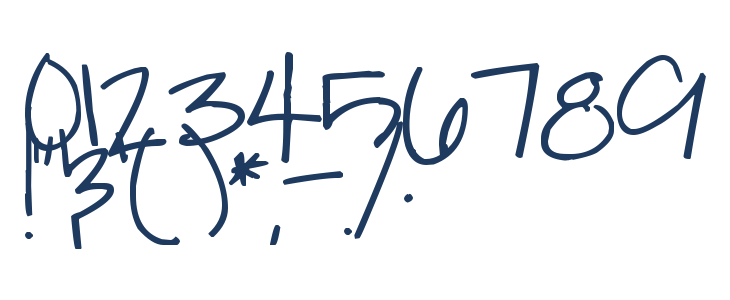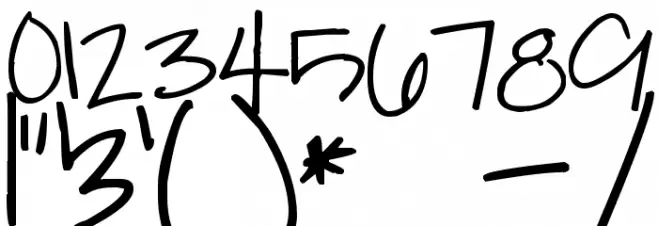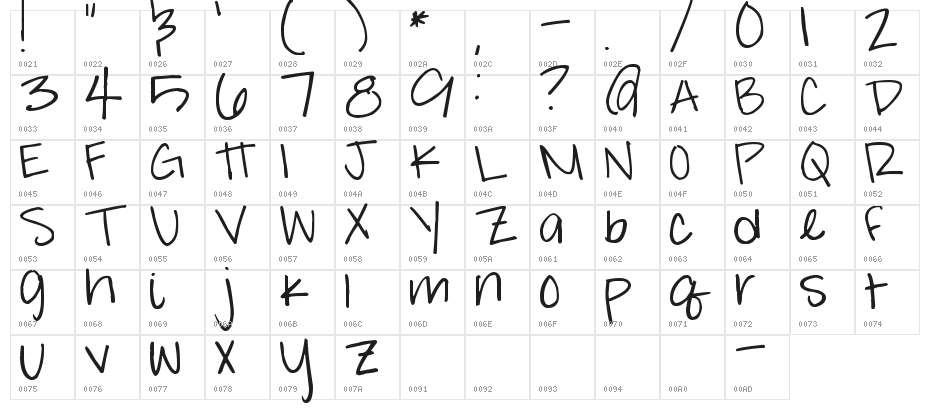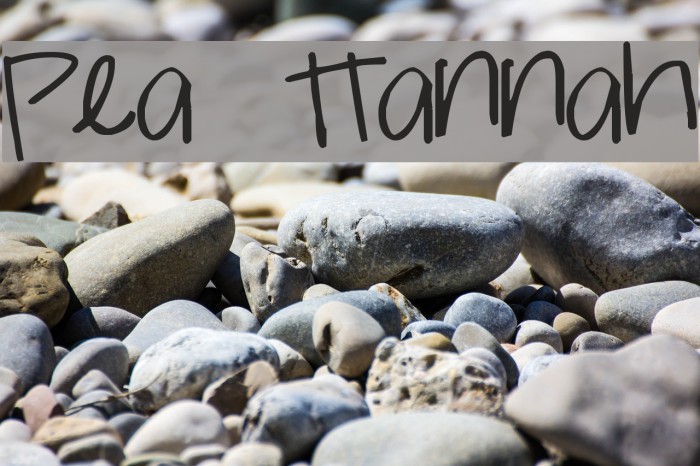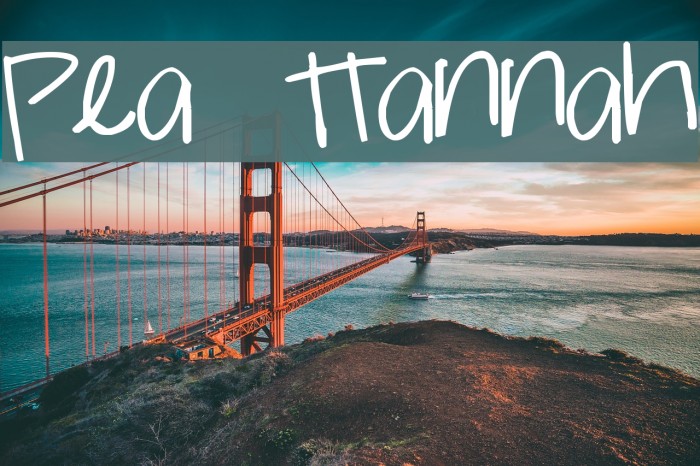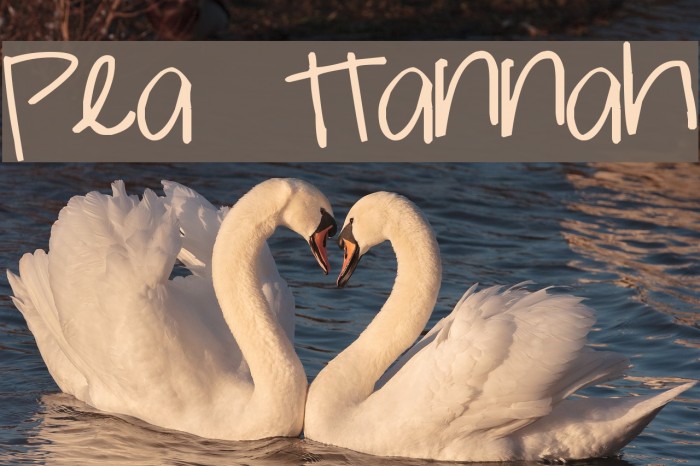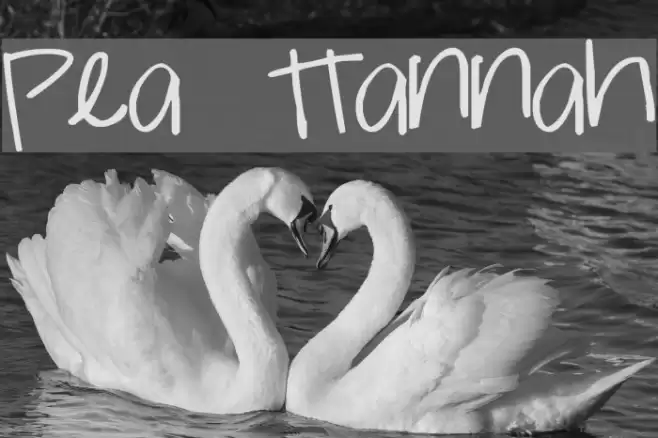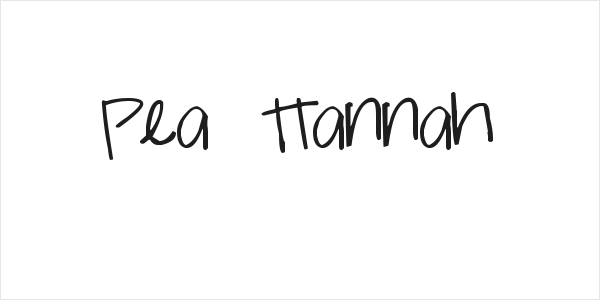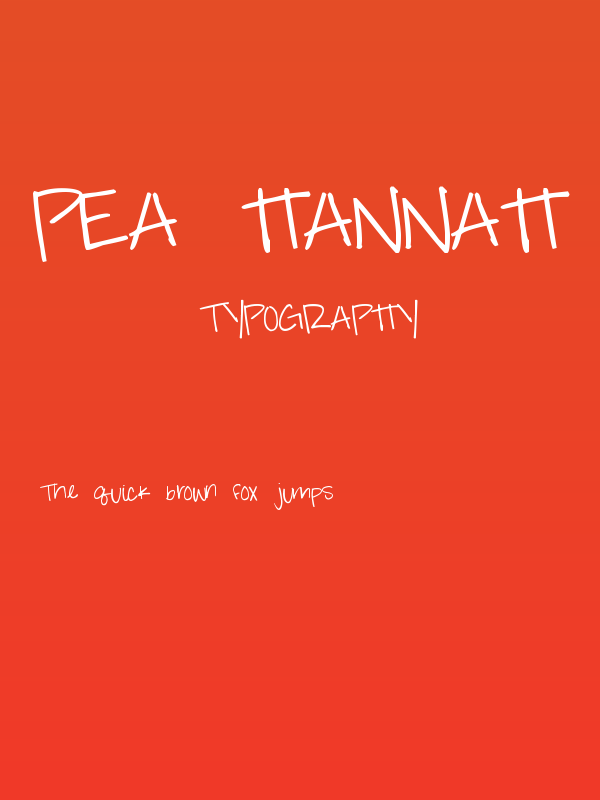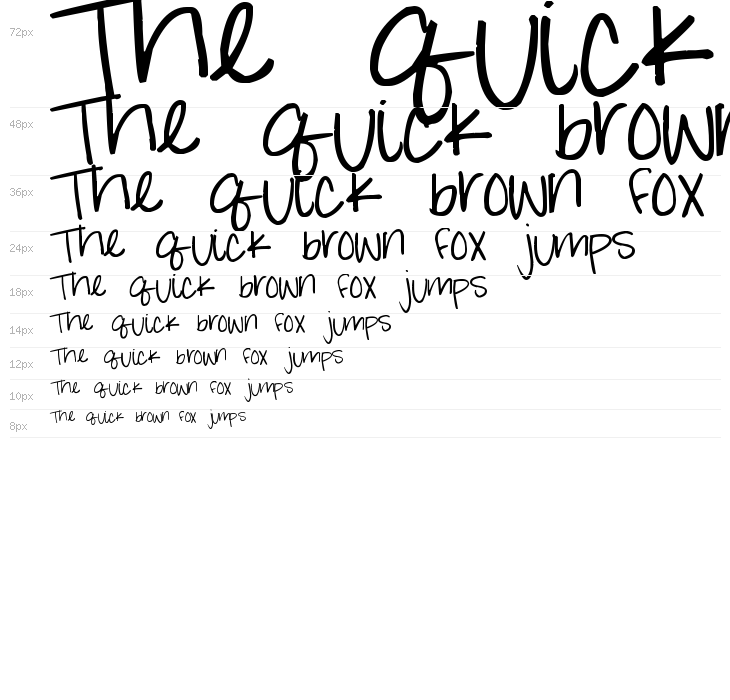
Pea Hannah Font
Pea Hannah Description
This font exudes a playful and casual handwritten style, characterized by its uneven strokes and informal appearance. The letters are slightly slanted, giving it a dynamic and lively feel. The uppercase and lowercase letters maintain a consistent style, with rounded edges and a slightly irregular baseline, enhancing its handwritten charm. The numerals and special characters follow the same playful aesthetic, making it suitable for projects that require a personal touch. The overall look is approachable and friendly, perfect for conveying warmth and creativity.
| Use Case | Greeting cards, Personal notes, Creative branding |
| Proposed Projects | Ideal for personal notes, greeting cards, children's books, and creative branding projects. |